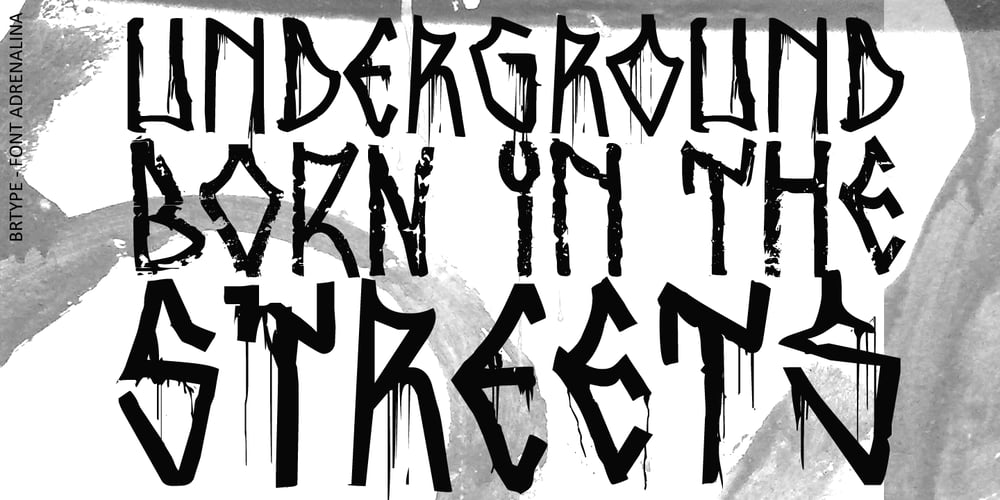
Adrenalina Font Family was designed by Gustavo Lassala and published by BRtype. Adrenalina contains 4 styles and family package options. Adrenalina was created in 2003-2007. In 2014 the project was revised and became a font family. The character set was drawn through digital manipulation from photos of pichações taken in São Paulo – Brazil. Pixação is a form of tagging that comes from Brazilian graffiti writers. This style of pichação (or pixação) is also known as tag reto (straight tag).